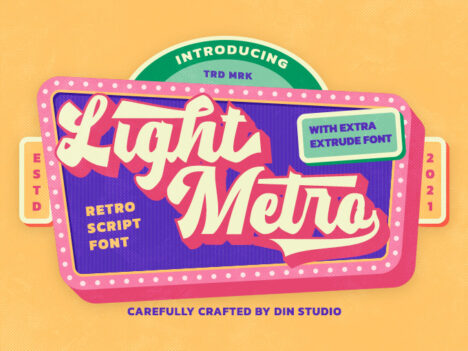
Light Metro
Light Metro is a script font in solid, thick outer lines to live up your brand. Inspired by the 1960-1970s font style, it expresses vintage touch in stylish look and its thick-angled displays are legible and great to watch. Light Metro becomes even more special with the extrusion version. Our font always includes Multilingual Support to make your branding reach a global audience.
- Stylistic Sets
- Swashes
- Numerals and Punctuation
Light Metro fits best for various designs, such as posters, banners, logos, book covers, headings, printed products, merchandise, social media, and more. Find out more ways to use this font by taking a look at the font preview.